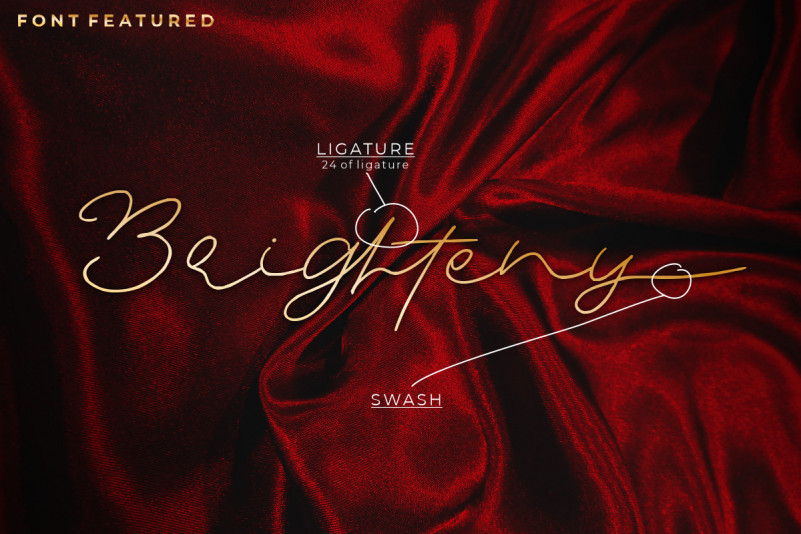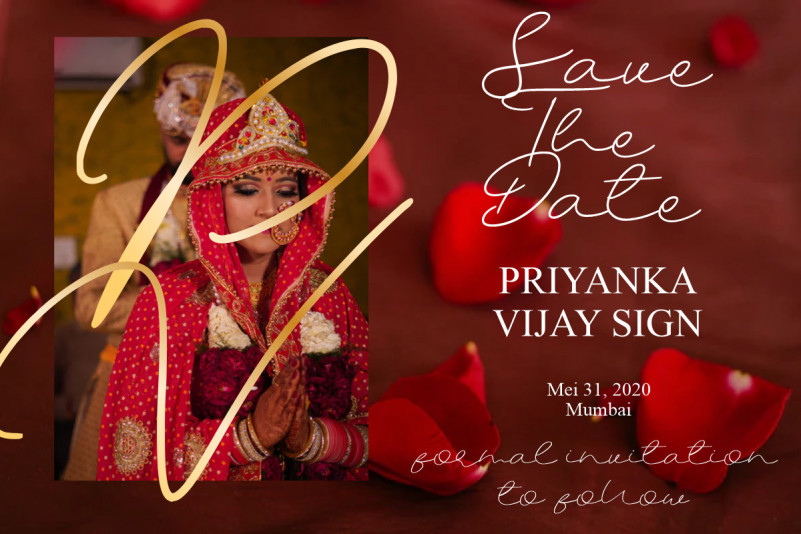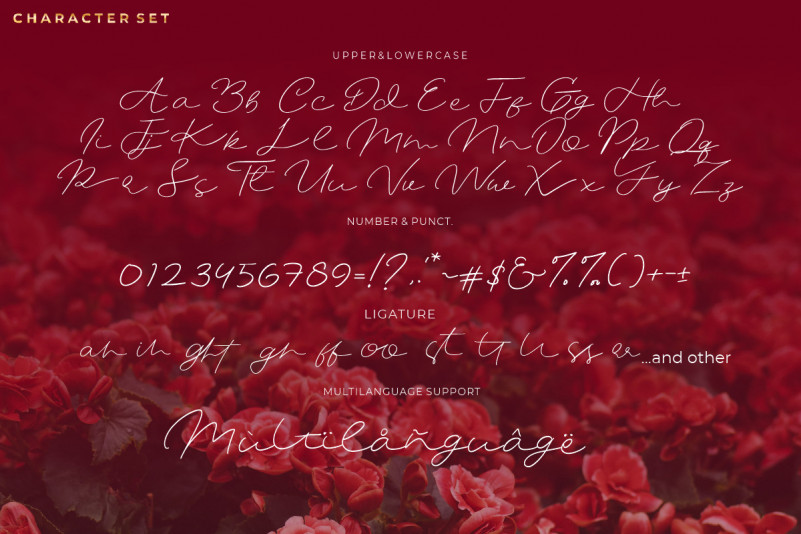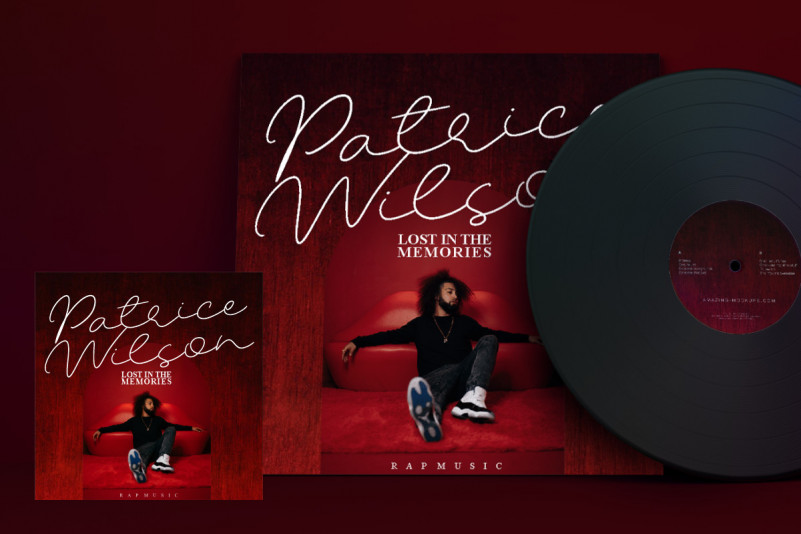
Mustine Handwritten Font
This is a natural handwritten font, a beautiful writing font with natural line movement that makes it beautiful and majestic.